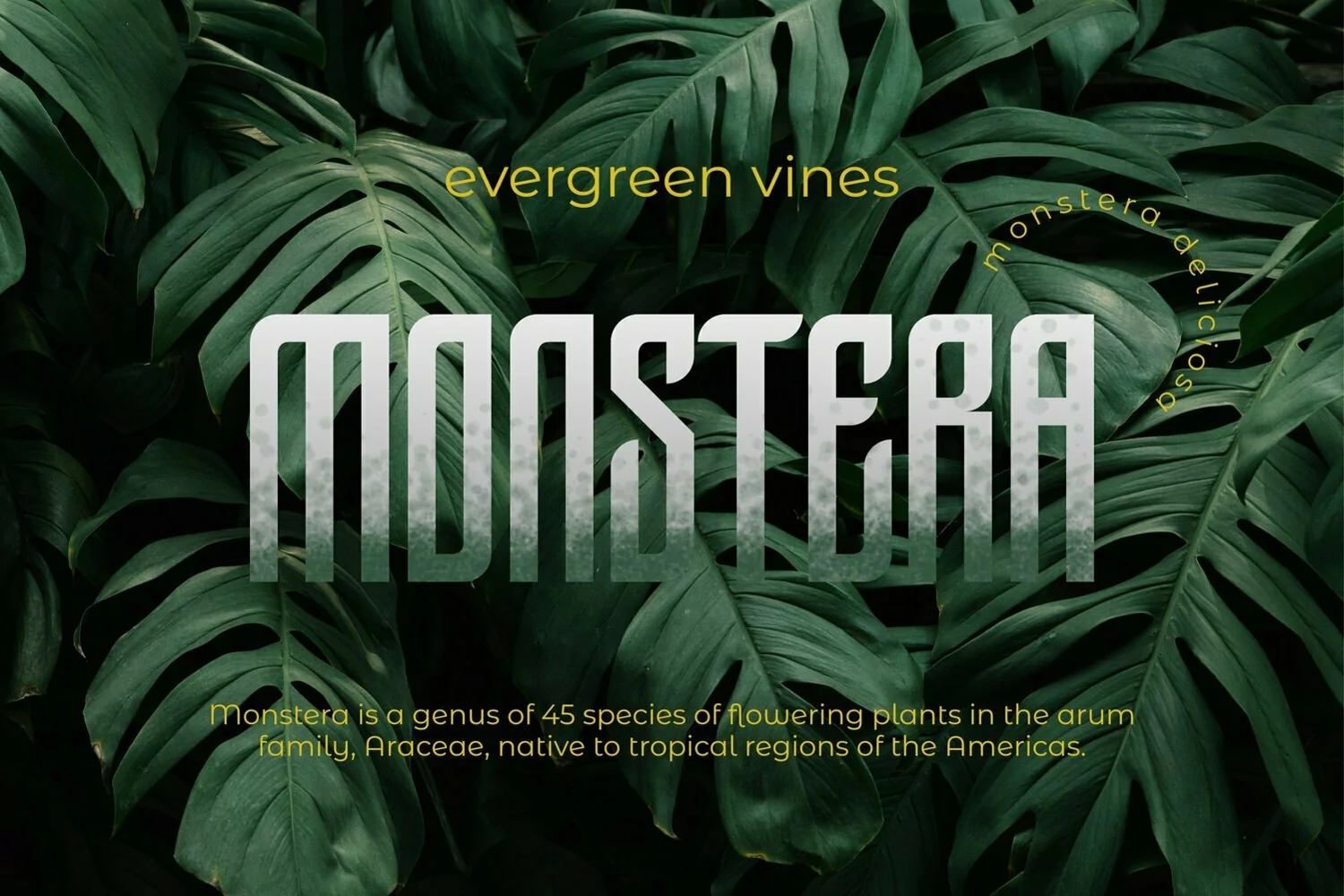
Web Font suitable for logotype, brand, packaging, quotes, music poster, t-shirt, cover book and more custom design. The features uppercase, lowercase, numeral, punctuation & symbol, multilingual support.
AUFERSTEHUNGRegular